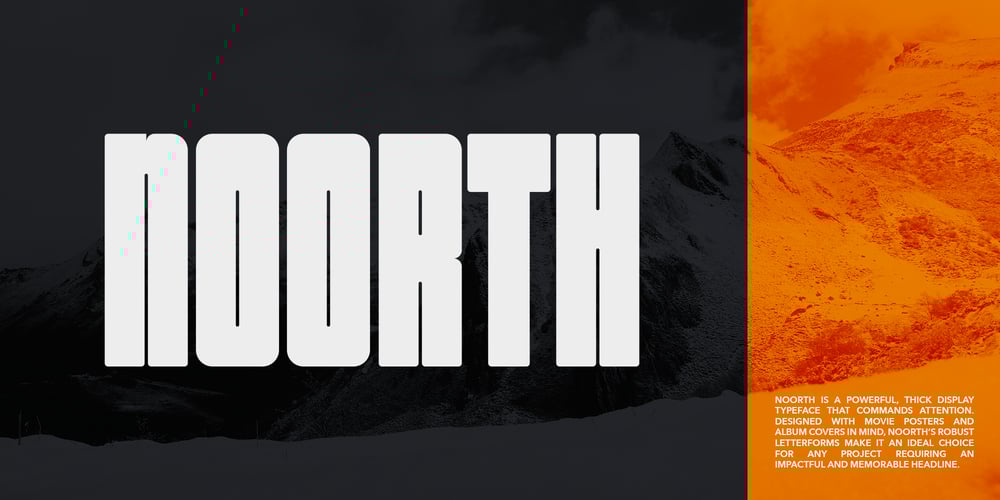
Noorth
Noorth font
Noorth Font Family was designed by Safa Caglayan Zorlu and published by Ikioda Design Office. Noorth contains 1 styles and family package options. Noorth is a powerful, thick display typeface that commands attention. Designed with movie posters and album covers in mind, Noorth’s robust letterforms make it an ideal choice for any project requiring an impactful and memorable headline.Unique FeaturesStriking Thickness: Noorth’s bold, blocky structure ensures your text stands out in any setting. The thickness of the characters gives a sense of solidity and strength, making it perfect for titles, headers, and logos.Versatility in Design: While it shines on movie posters and album covers, Noorth is versatile enough to be used in a variety of design projects. From advertising campaigns to product packaging, its bold presence can elevate the visual appeal of your work.Complementary Pairings: Noorth pairs exceptionally well with minimalist and sans-serif typefaces. Use it alongside cleaner fonts to create a striking contrast that enhances readability and visual interest.Functional AspectsComprehensive Character Set: Noorth includes a full range of characters, ensuring you have all the tools needed for creative and functional typography. From uppercase and lowercase letters to numerals and punctuation, Noorth covers all your typographic needs.Special Features: The font is meticulously designed to maintain clarity and legibility at various sizes. Whether on a large billboard or a small poster, Noorth retains its boldness without compromising on quality.Design ConceptInspired by Bold Design Trends: Noorth draws inspiration from the bold typography trends of modern graphic design. The concept behind Noorth was to create a typeface that doesn’t just communicate a message but does so with authority and style.Why Noorth?When you choose Noorth, you’re not just selecting a font – you’re making a statement. Its unique combination of thickness and style ensures that your designs will leave a lasting impression. Whether you’re designing for the entertainment industry or looking to add a bold touch to your brand, Noorth is the typeface that delivers unparalleled impact.